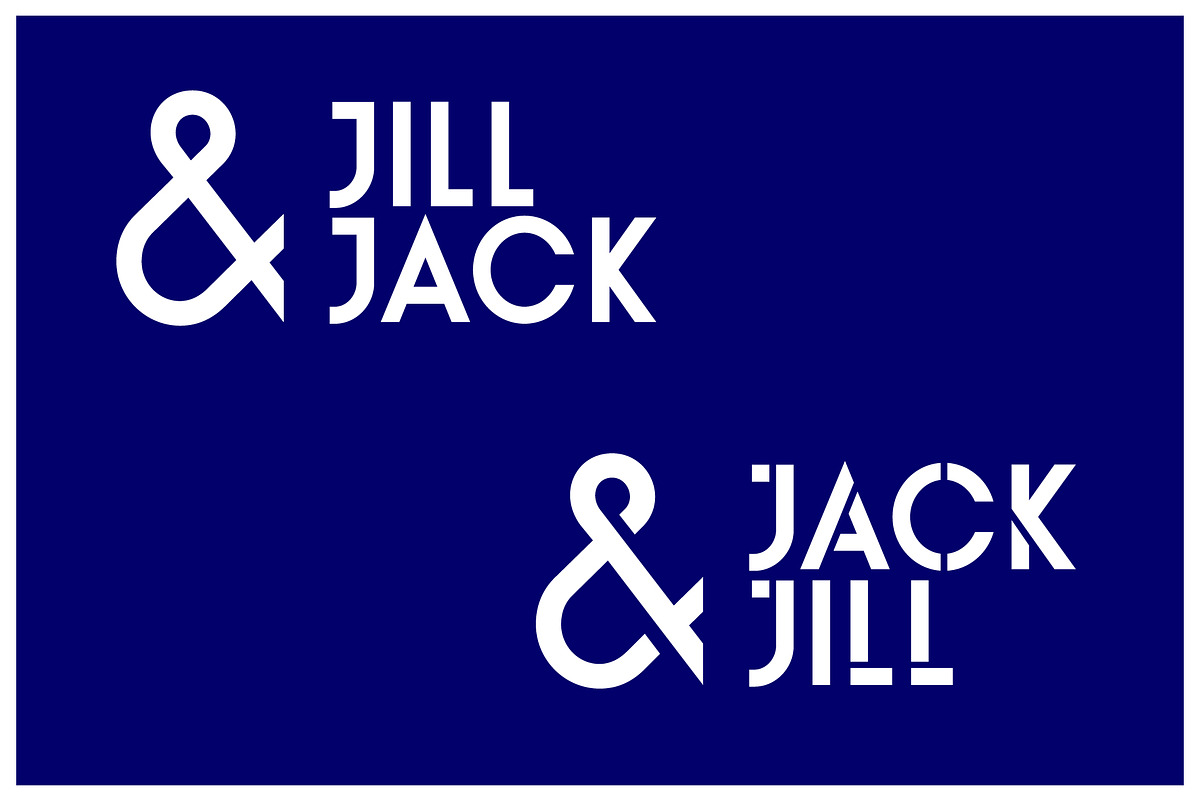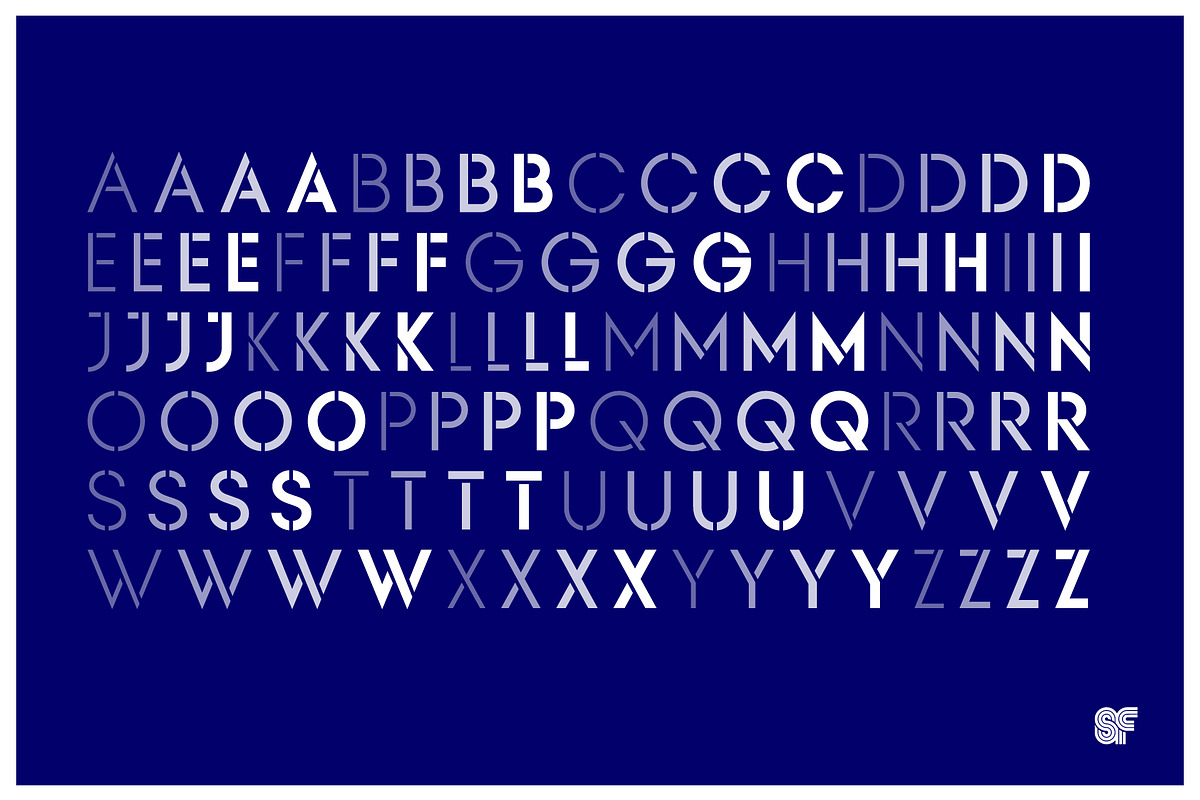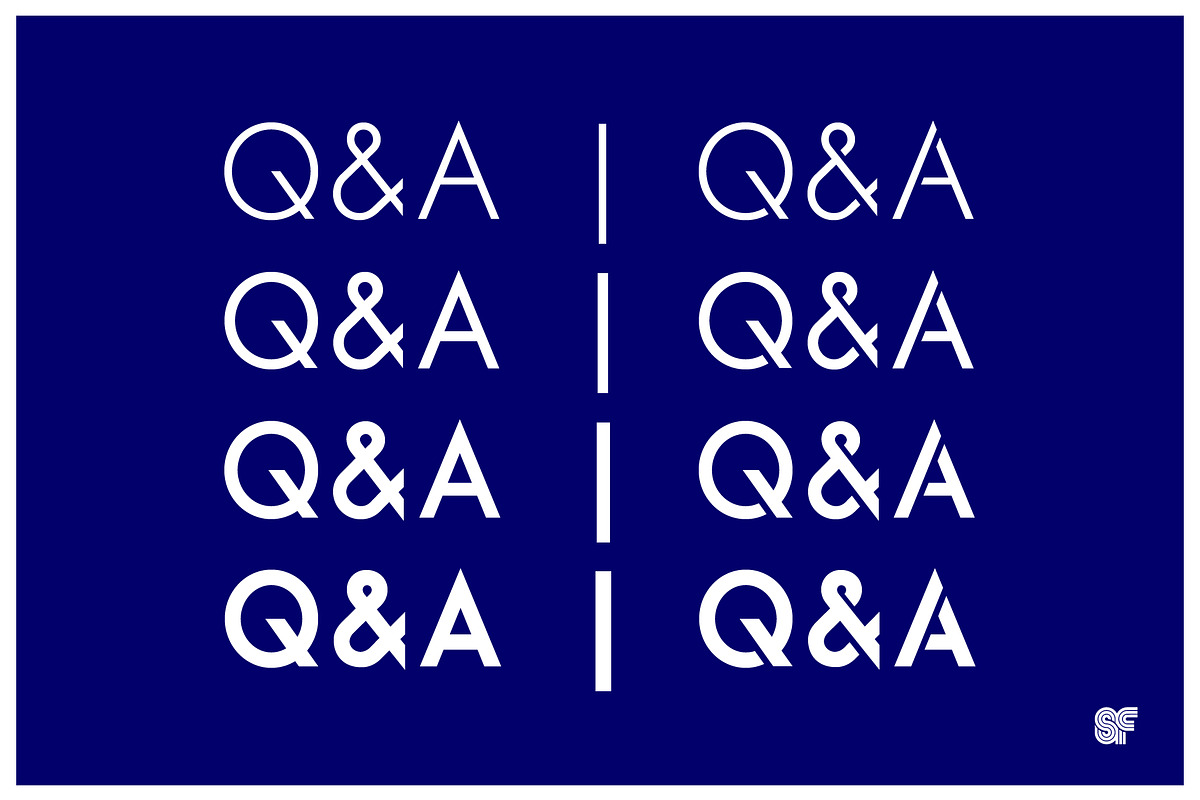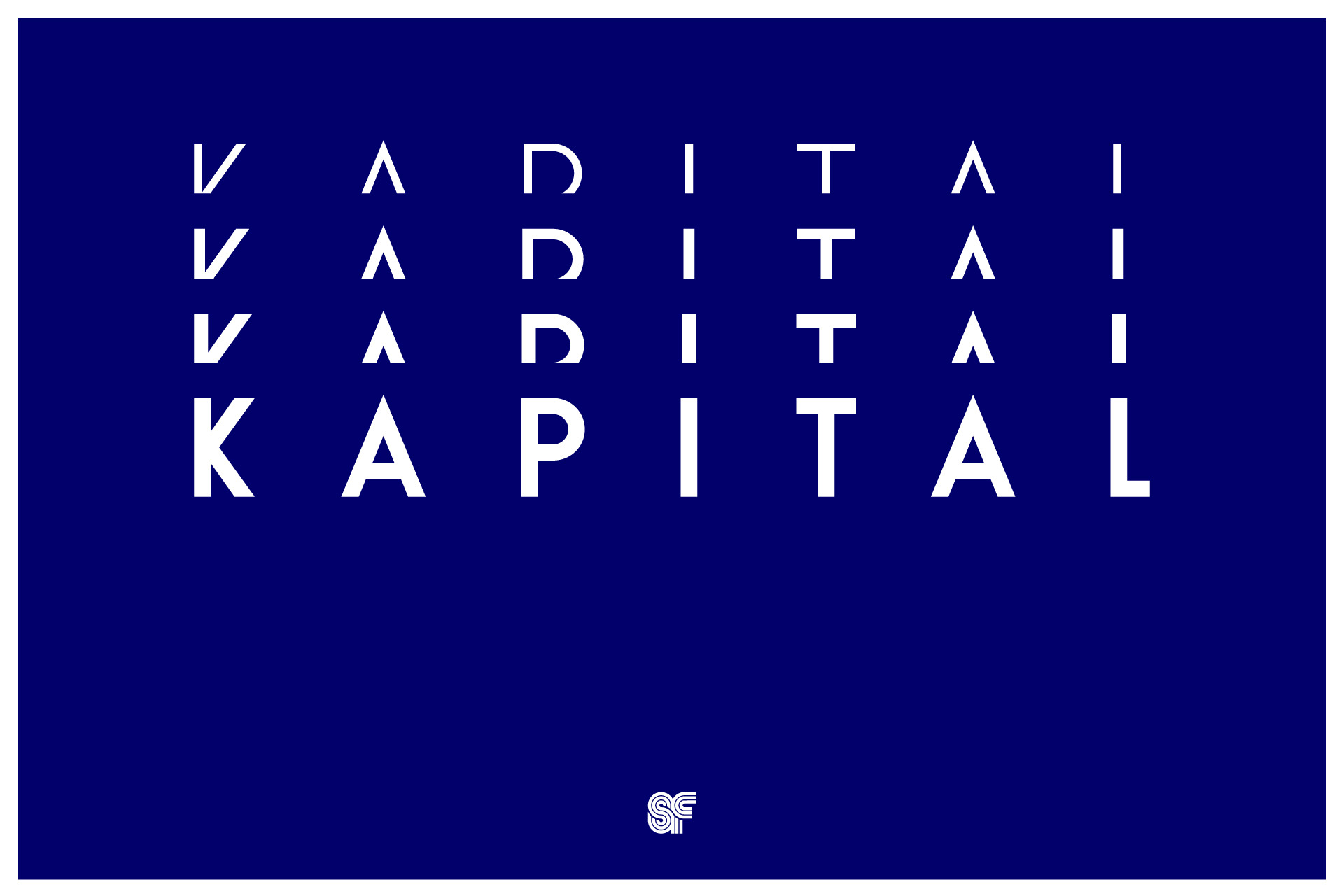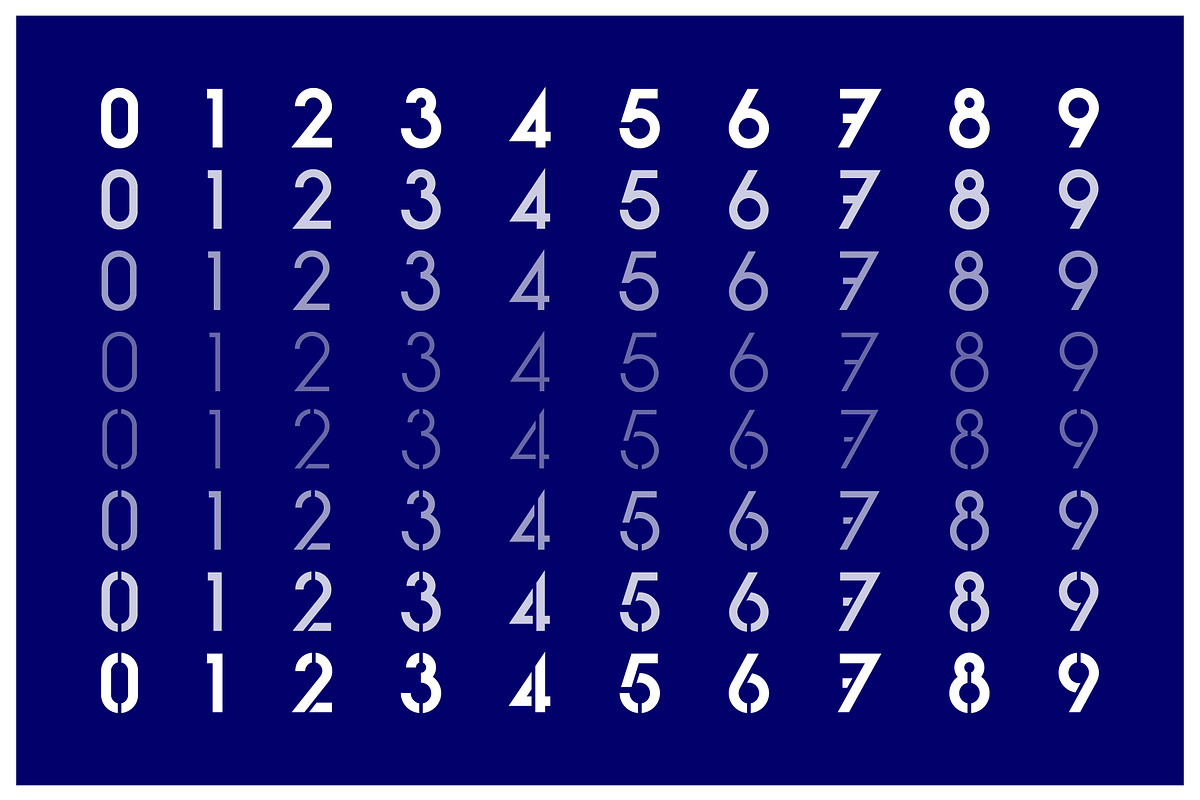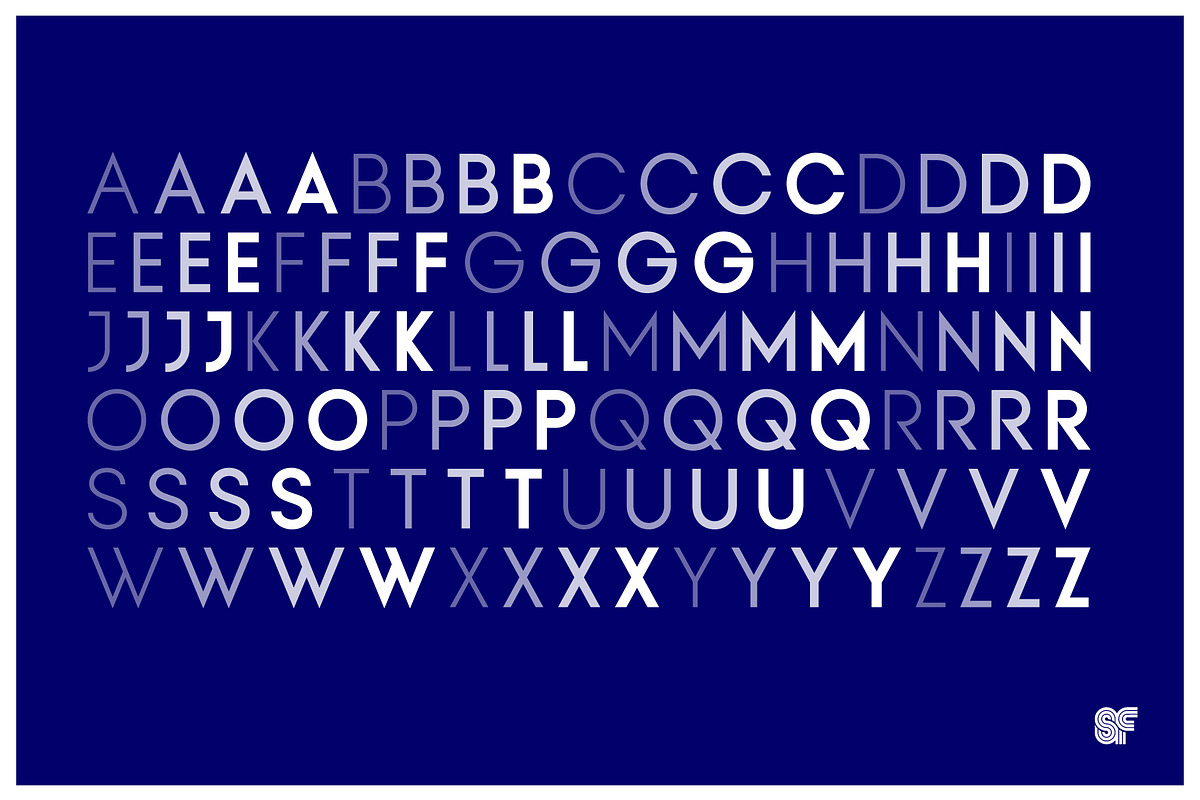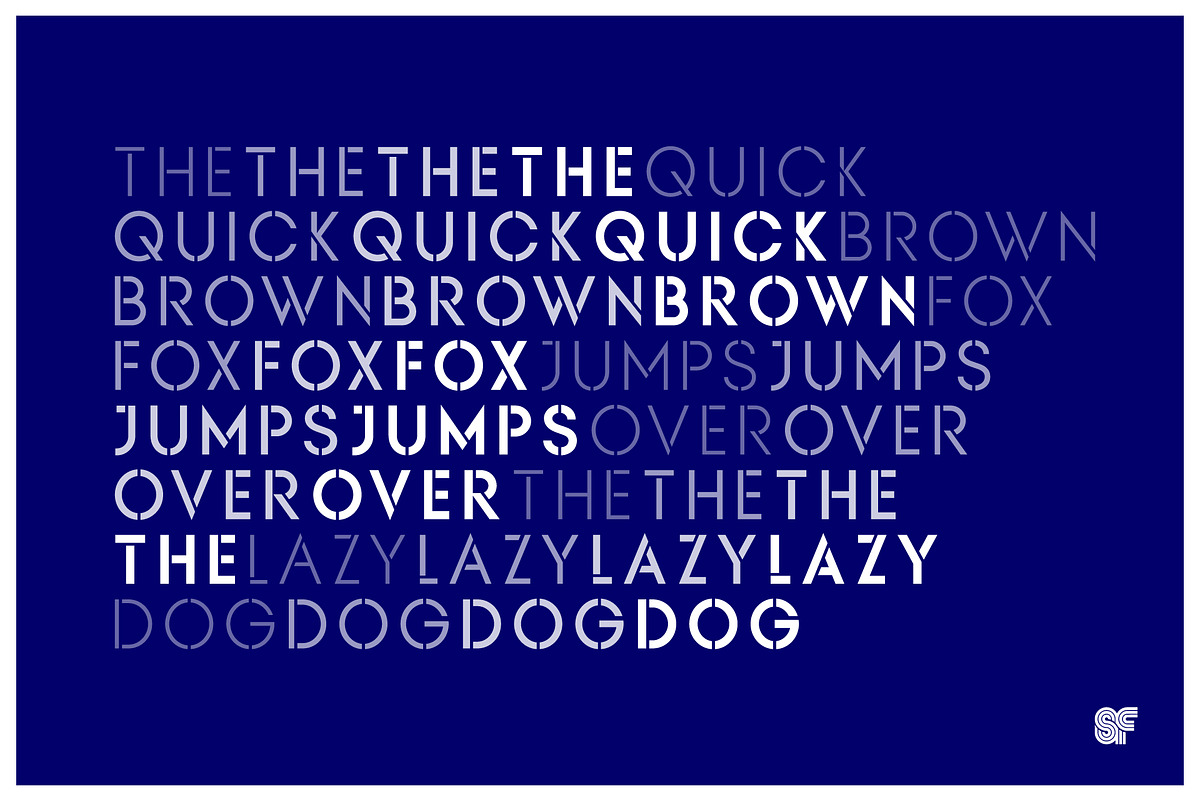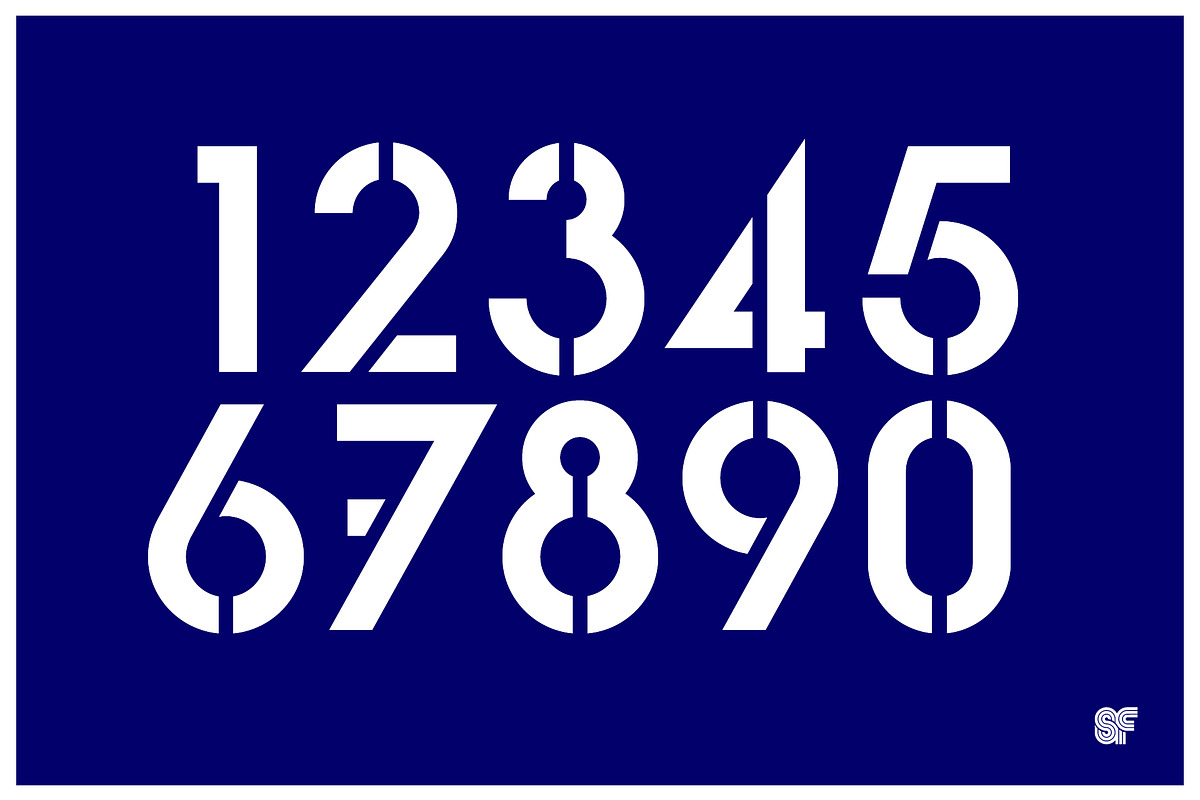
KAPITAL | 8 Fonts 4 Sans 4 Stencil
Kapital, designed by Superfried in 2018 and remastered for 2025, is an elegant geometric uppercase sans-serif typeface. Available in both standard and stencil styles, it features four versatile weights: light, regular, medium, and demi-bold. This type family draws inspiration from the uppercase character set of its predecessor, Basik, while enhancing its clean, geometric aesthetics to achieve a more minimalistic style.
The letterforms of Kapital are deliberately simple with a focus on clarity, allowing the characters to convey information without distraction. Special attention has been given to the consistency of glyph forms across different weights, ensuring that the integrity of the design is maintained. Additionally, adjustments have been made to key letterforms to optimize negative space, minimizing deviations that often occur with increased weight.
Ideal for branding, editorial design, and web applications, Kapital stands out for its refined simplicity and functional elegance.